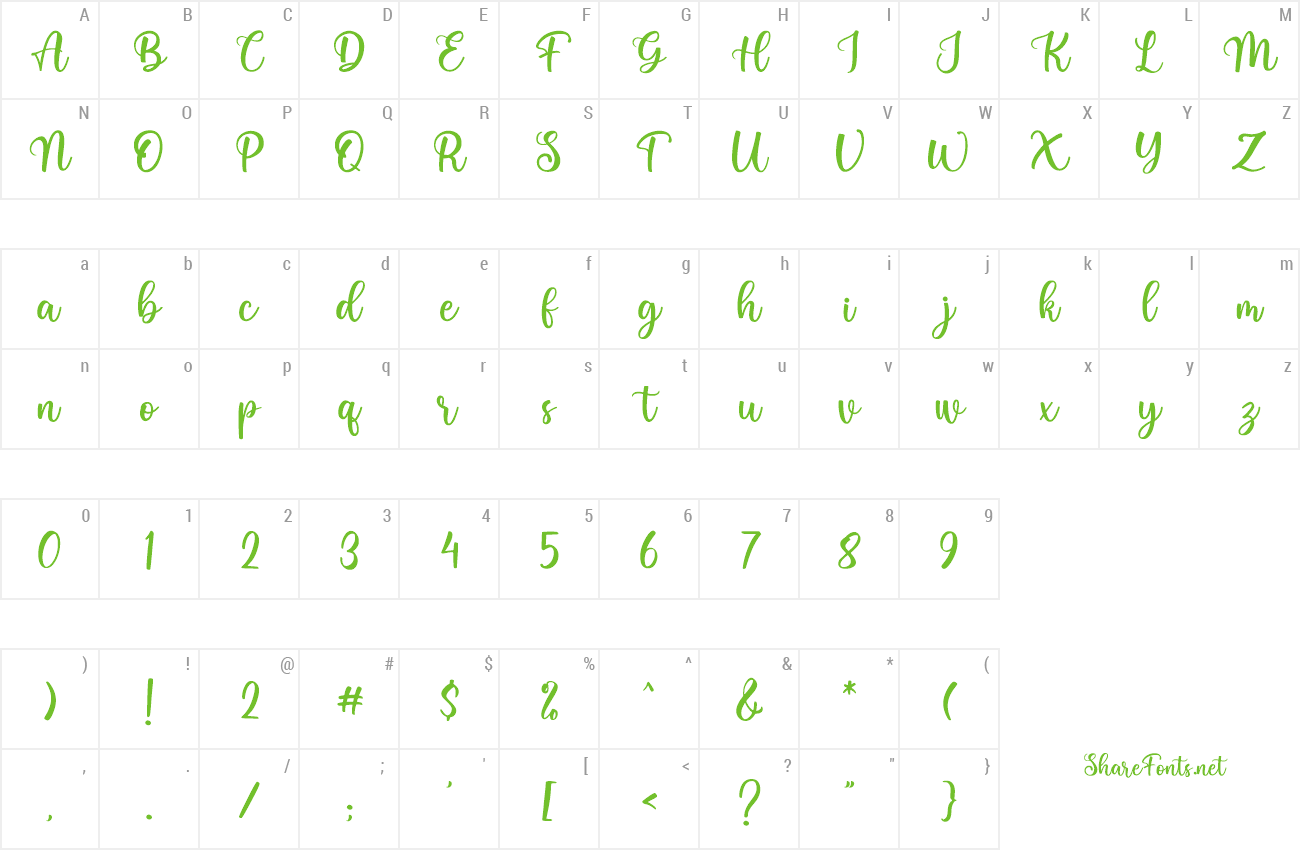
Lovely Melody Font
Lovely Melody Font - Web lovely melody calligraphy font is a beautiful and modern handwritten script font. Web lovely melody truetype personal use. Web lovely melody font | dafont.com. Web 1,580 downloads (2 yesterday) free for personal use. It features gorgeous swashes and. Lovely melody à € by raffasyad studio.